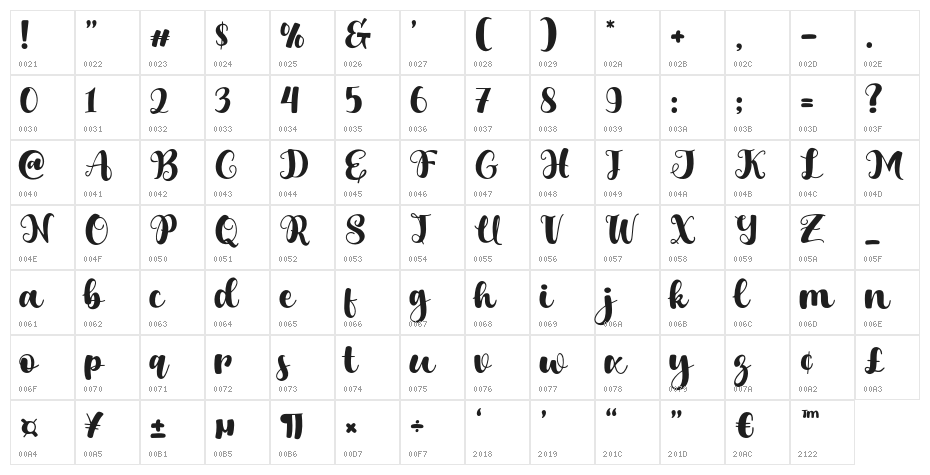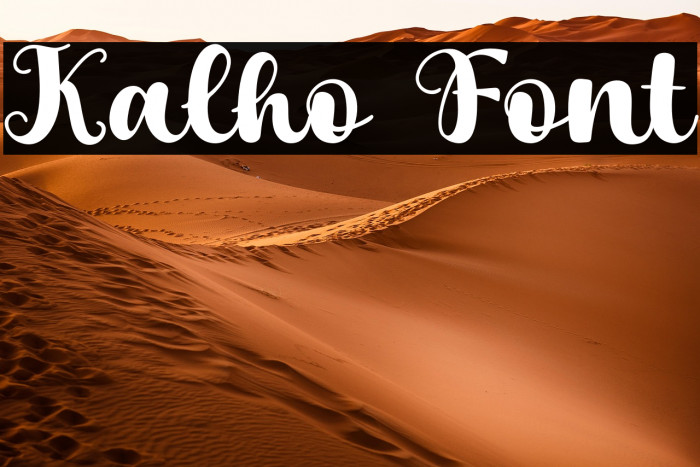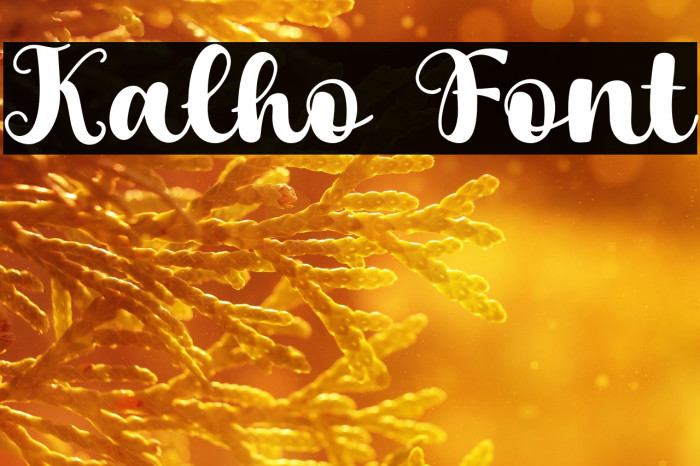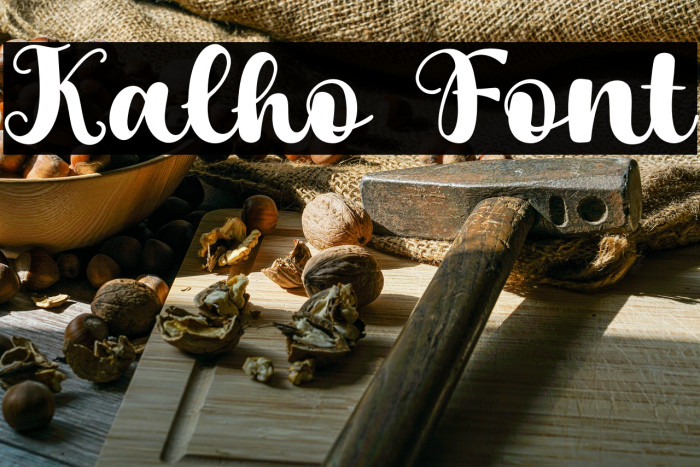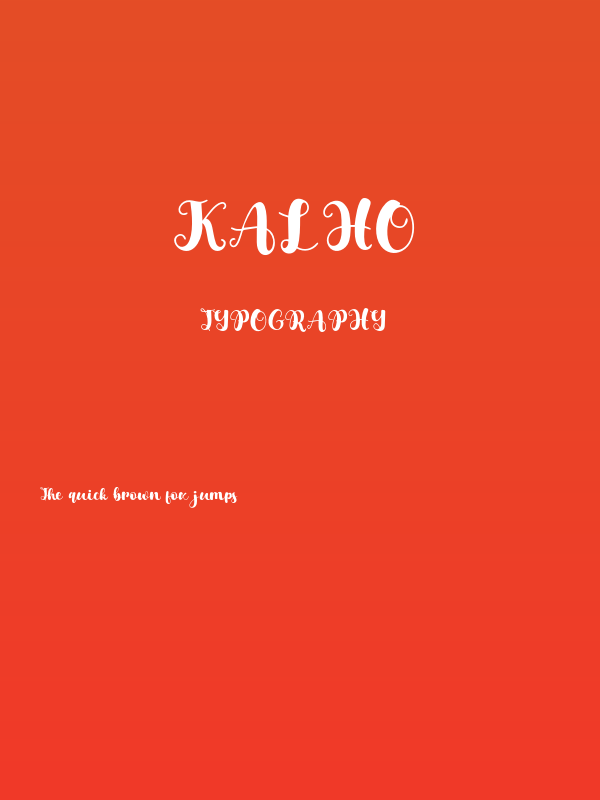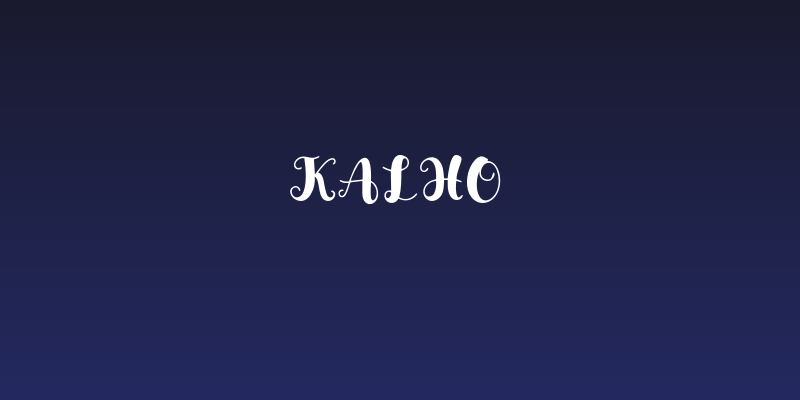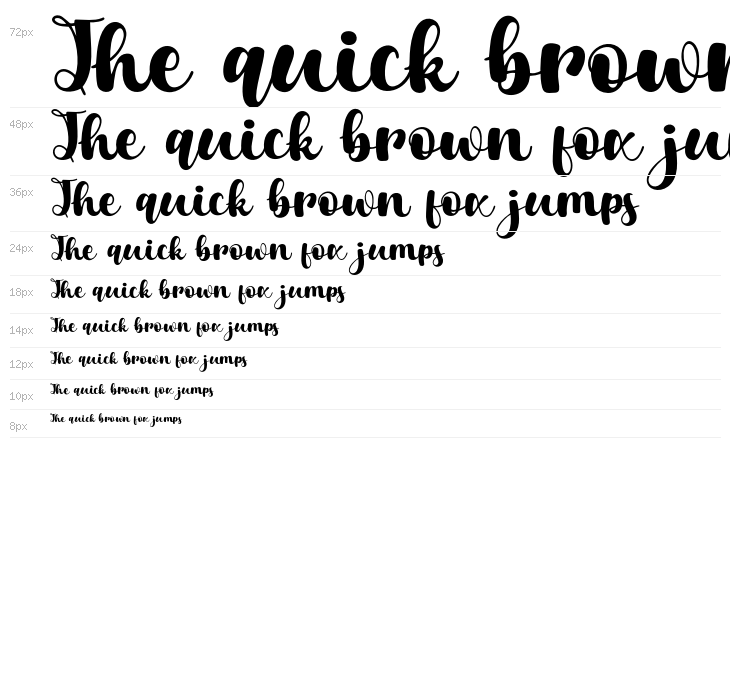
Kalho Font
Kalho Description
This font features a bold, flowing script style with elegant curves and loops, giving it a lively and dynamic appearance. The uppercase letters are characterized by their decorative swashes, while the lowercase letters maintain a consistent, rounded form. The numerals are bold and slightly whimsical, complementing the overall playful aesthetic. Special characters are designed with the same attention to detail, ensuring a cohesive look across all glyphs. The font's thick strokes and smooth transitions make it highly legible while retaining its artistic flair.
| Use Case | Headlines, Logos, Invitations |
| Proposed Projects | Ideal for wedding invitations, branding, greeting cards, and decorative headlines. |